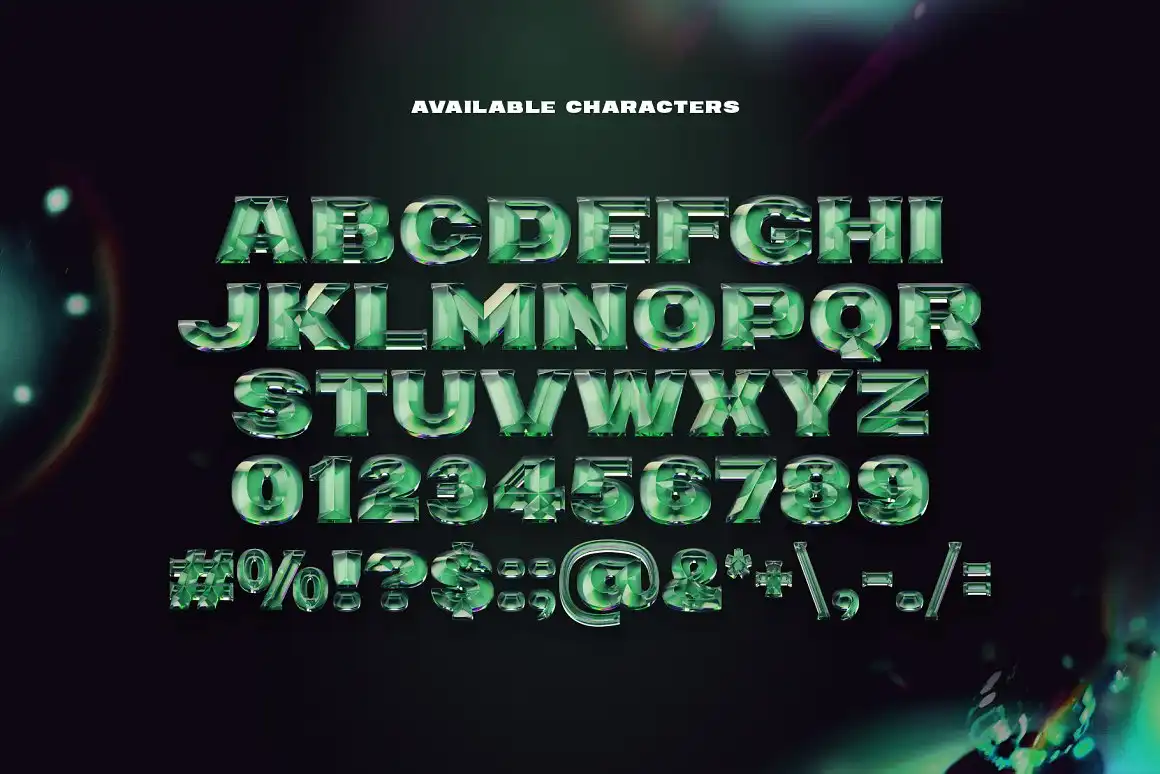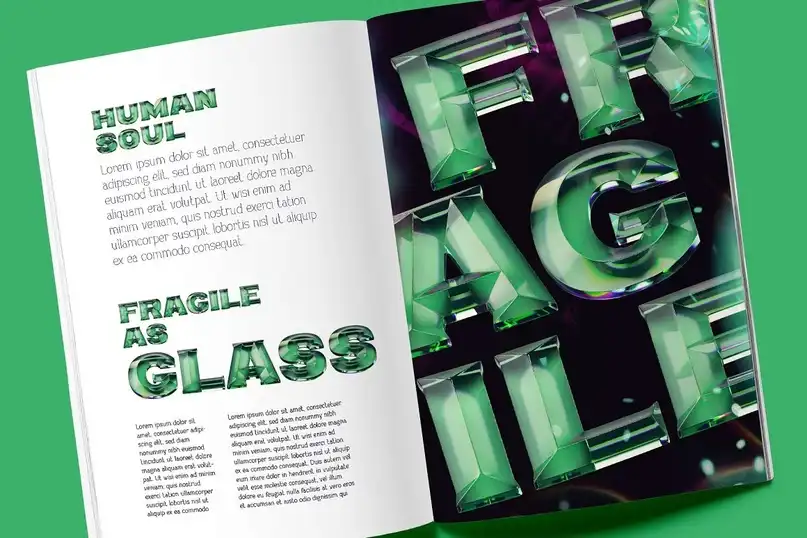
Welcome to the World of Green Eyes – Bitmap Color Font!
Looking for a stunning font that shines with personality? Meet the Green Eyes – Bitmap Color Font! This digital download offers instant access to a vibrant typeface that glimmers like sparkling green glass, perfect for adding a splash of color to your designs! 🌟
The Green Eyes font is a unique 3D rendered typeface that features a colorful dispersion effect. Designed as a color bitmap OpenType-SVG font, it works just like a regular OTF font while bringing an eye-catching flair to your projects. Plus, you’ll receive a set of full-resolution PNG files with a transparent background, making it easy to incorporate into any design! 🎨
- 3D Rendered Design: Captivating depth and dimension that stands out.
- Color Bitmap OpenType-SVG: Versatile usage as a standard font with vibrant color support.
This font is ideal for graphic designers, illustrators, and anyone looking to add a touch of magic to their projects! Whether you’re crafting vibrant posters, eye-catching social media graphics, or stunning branding materials, the Green Eyes font is your go-to choice! ✨